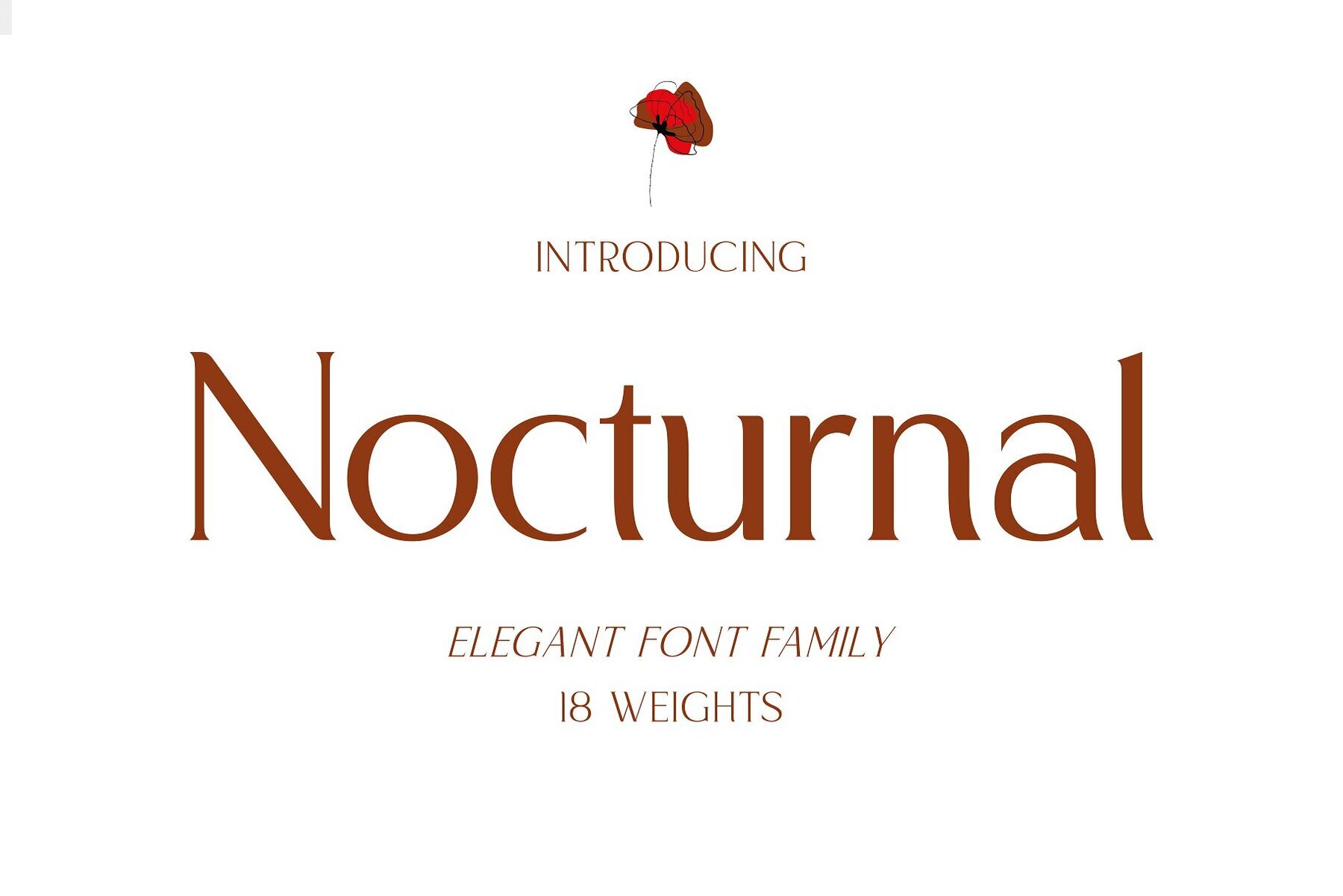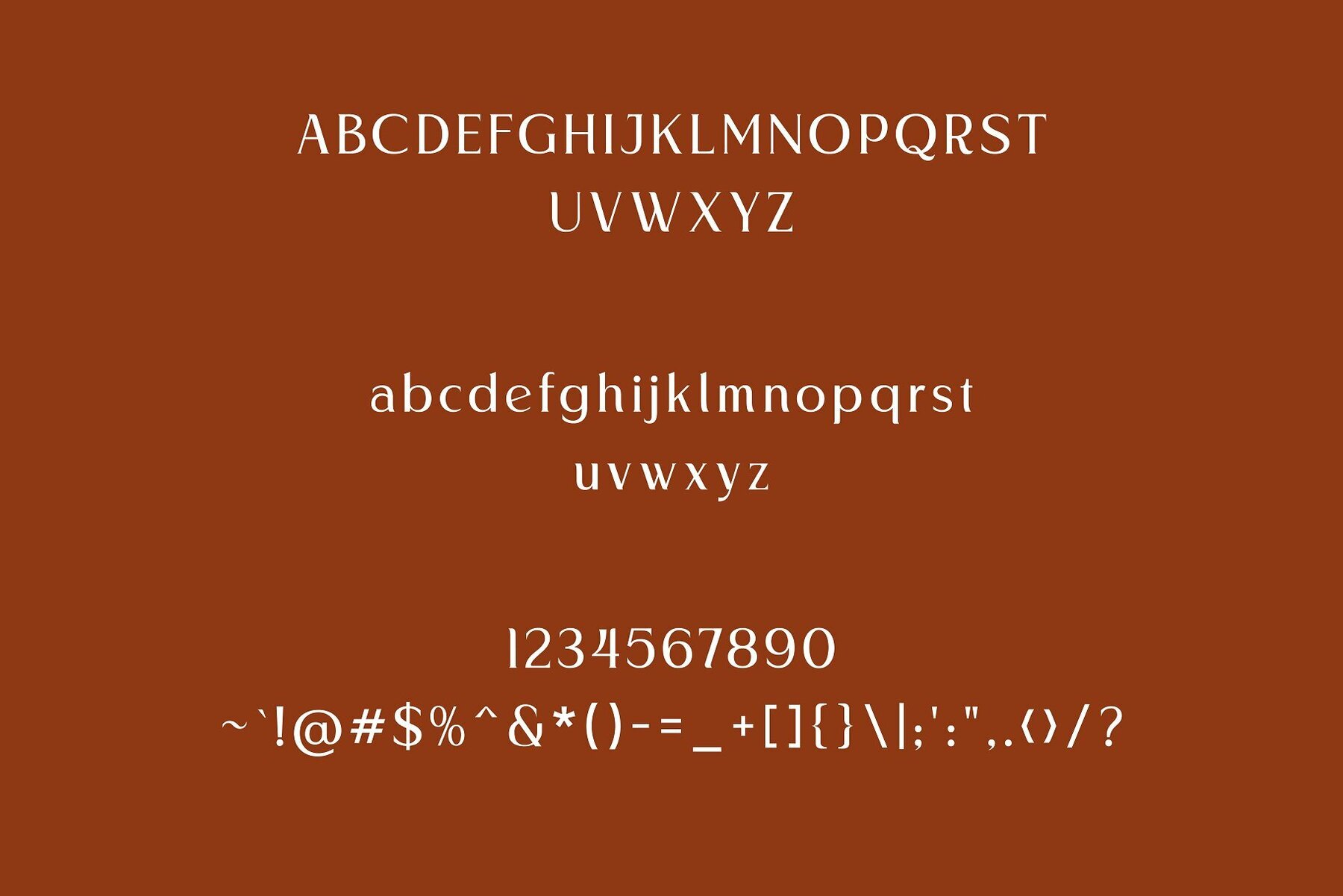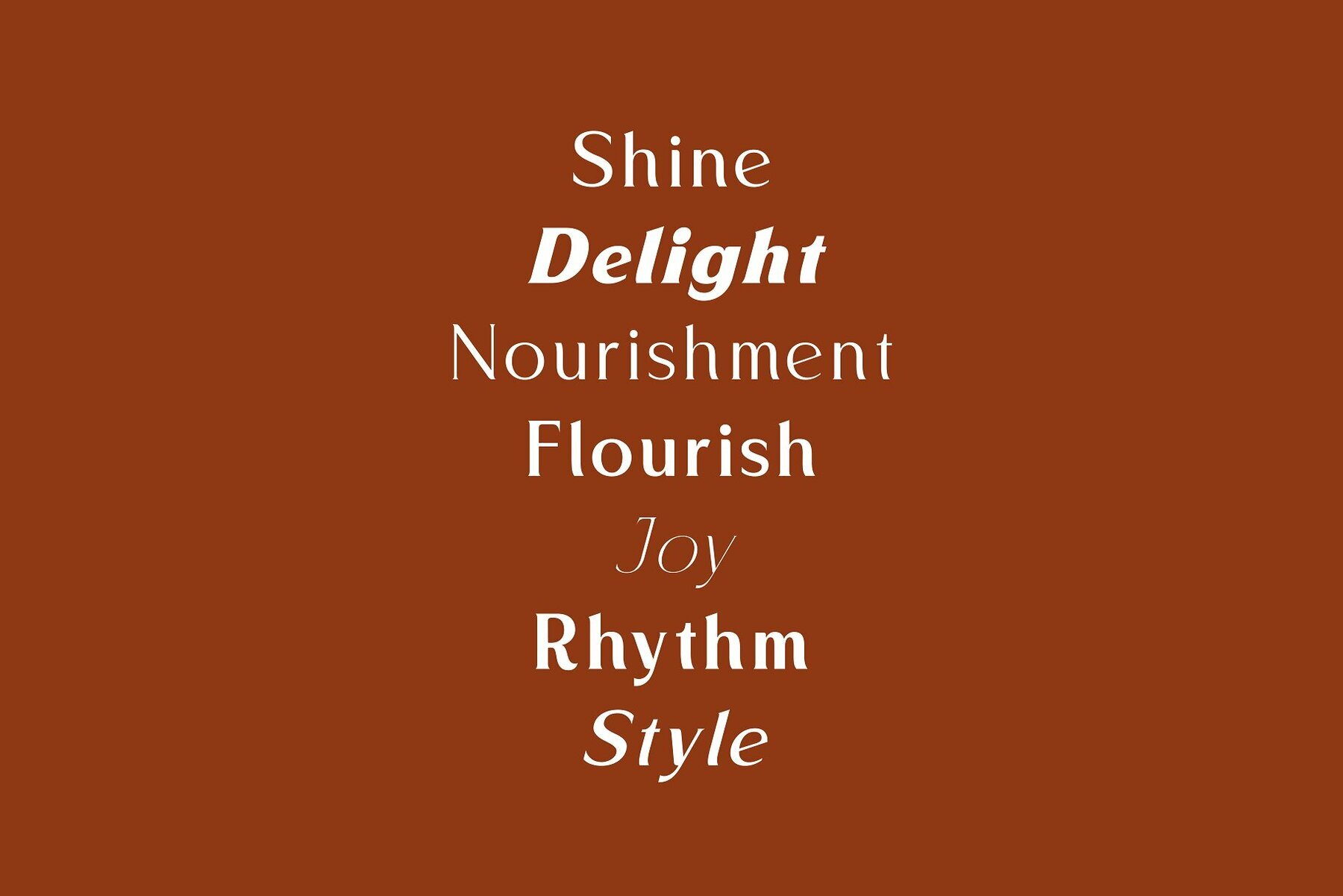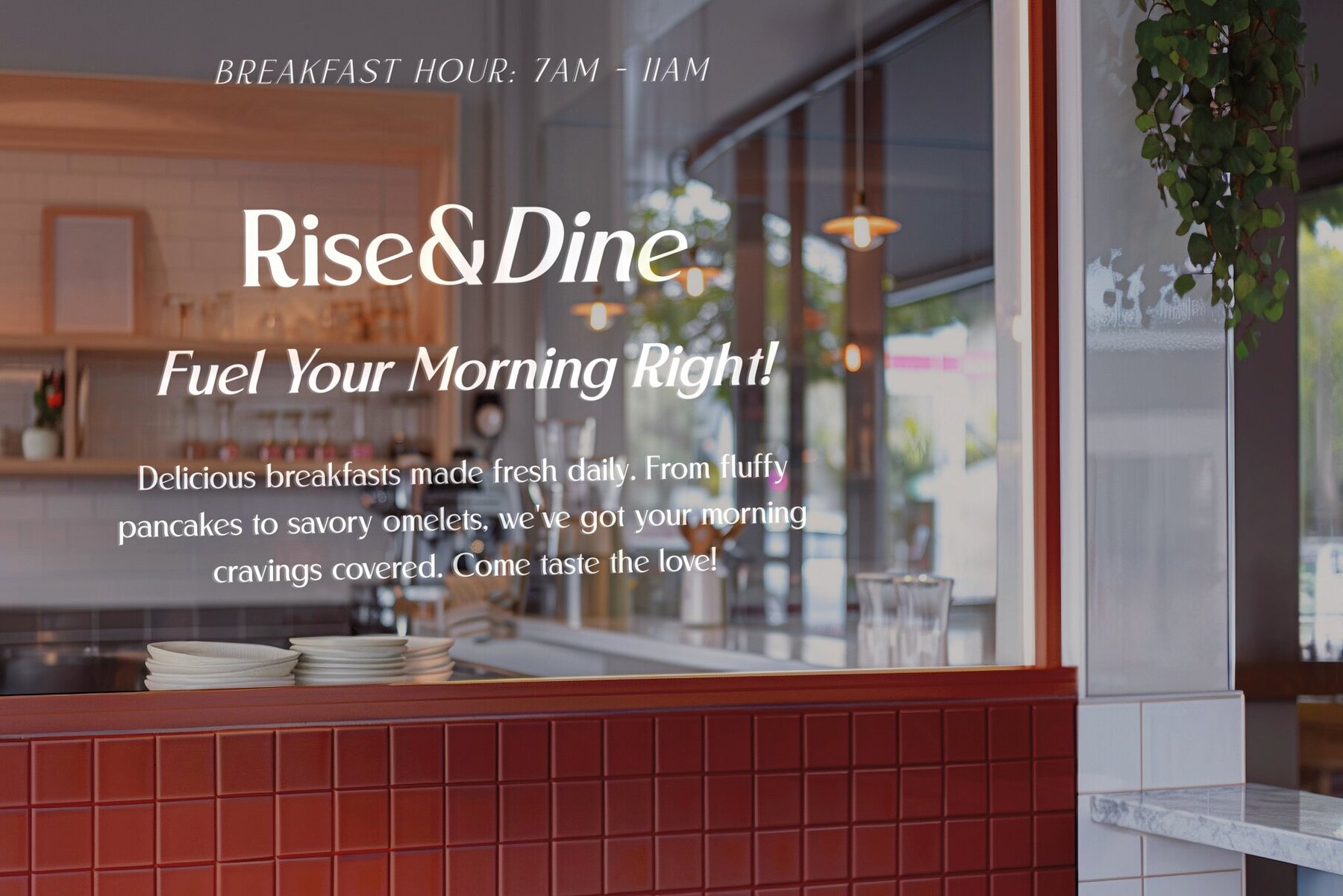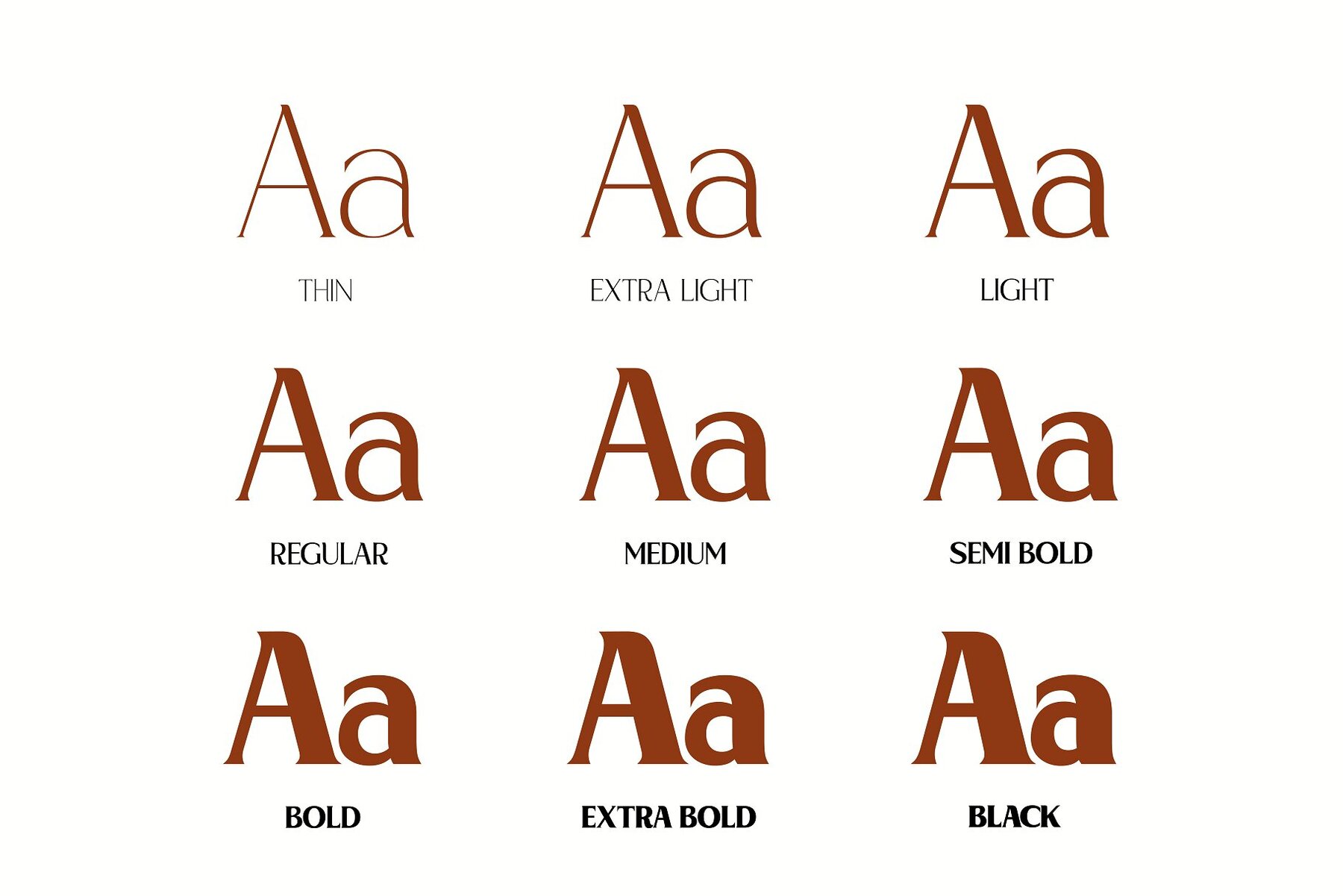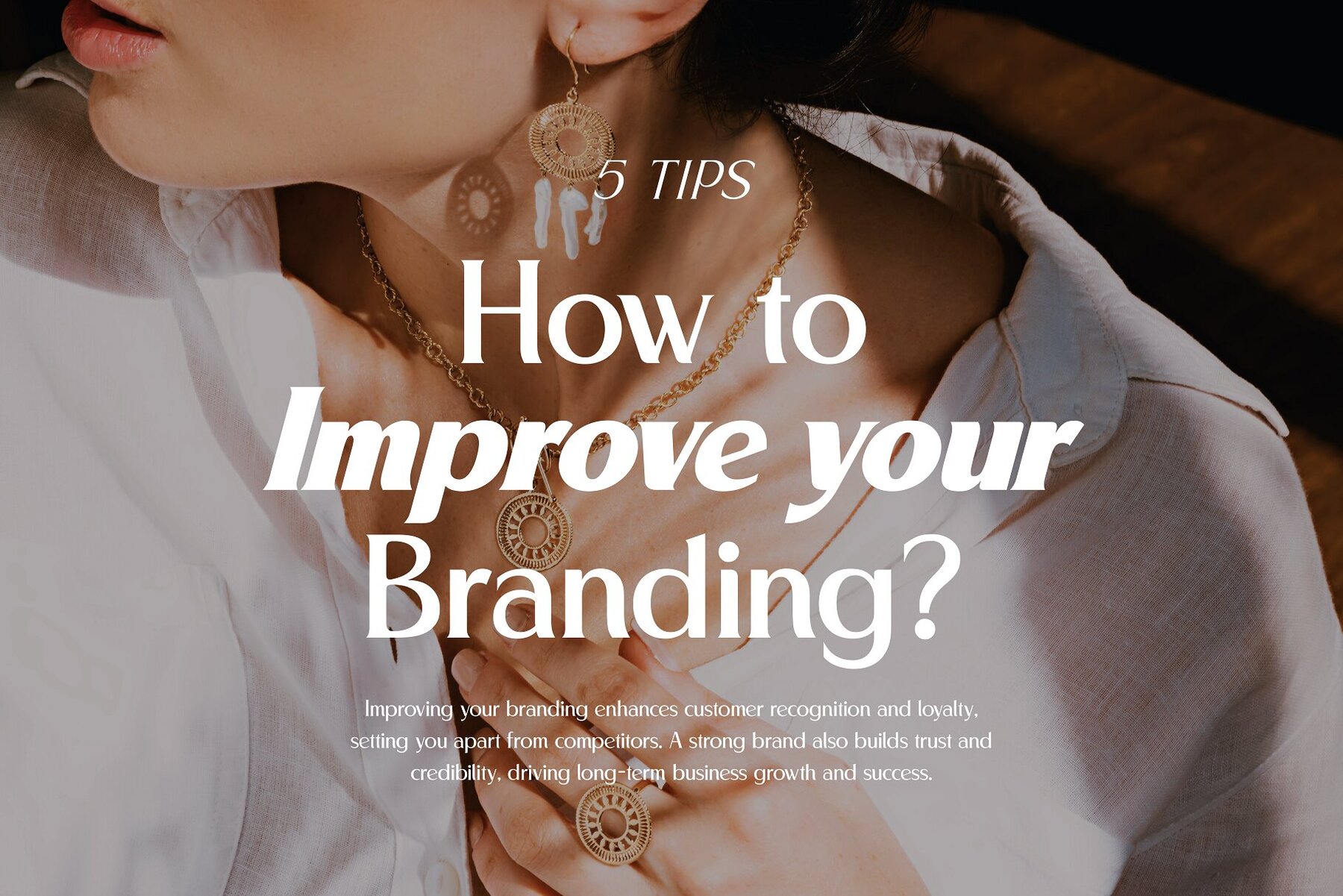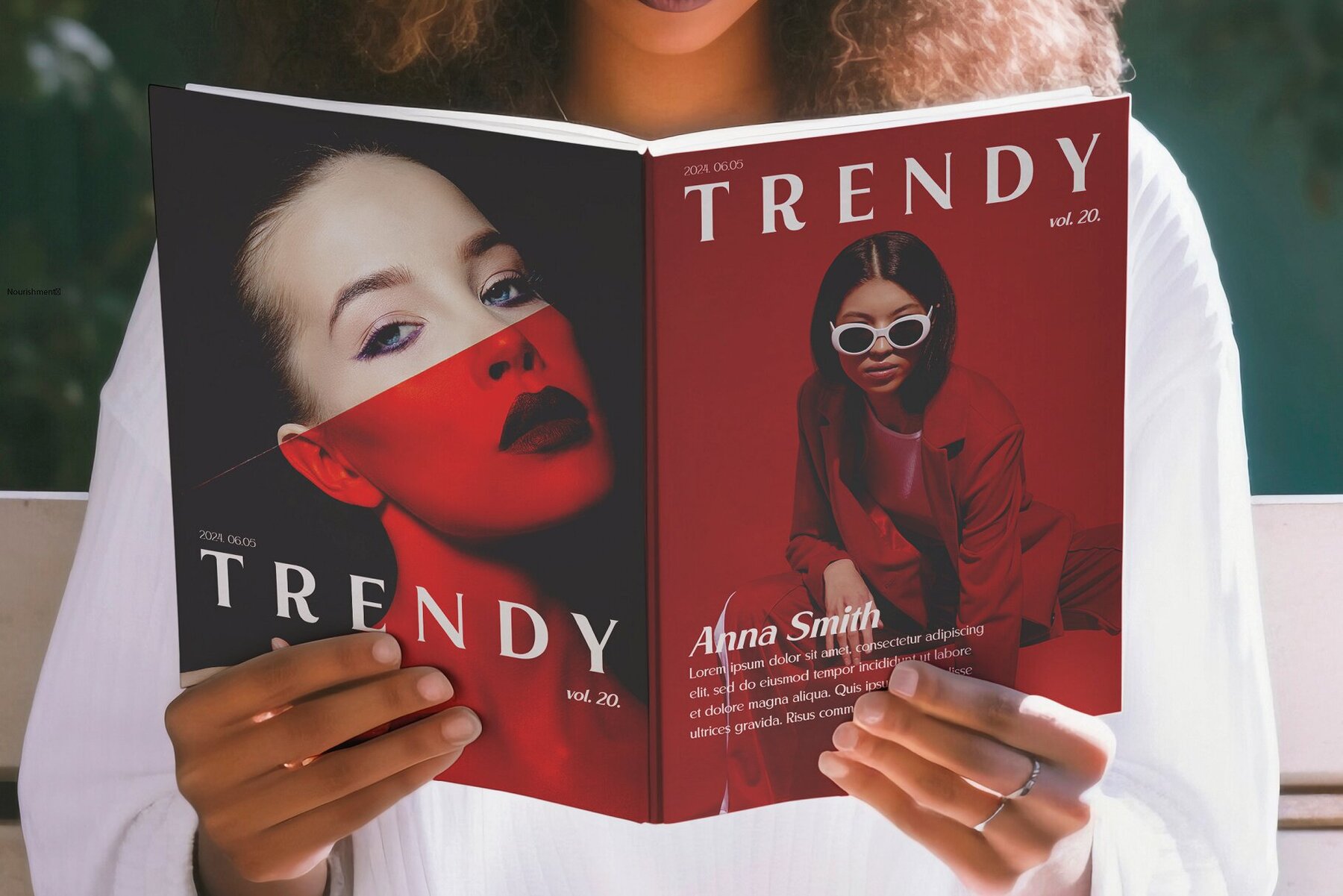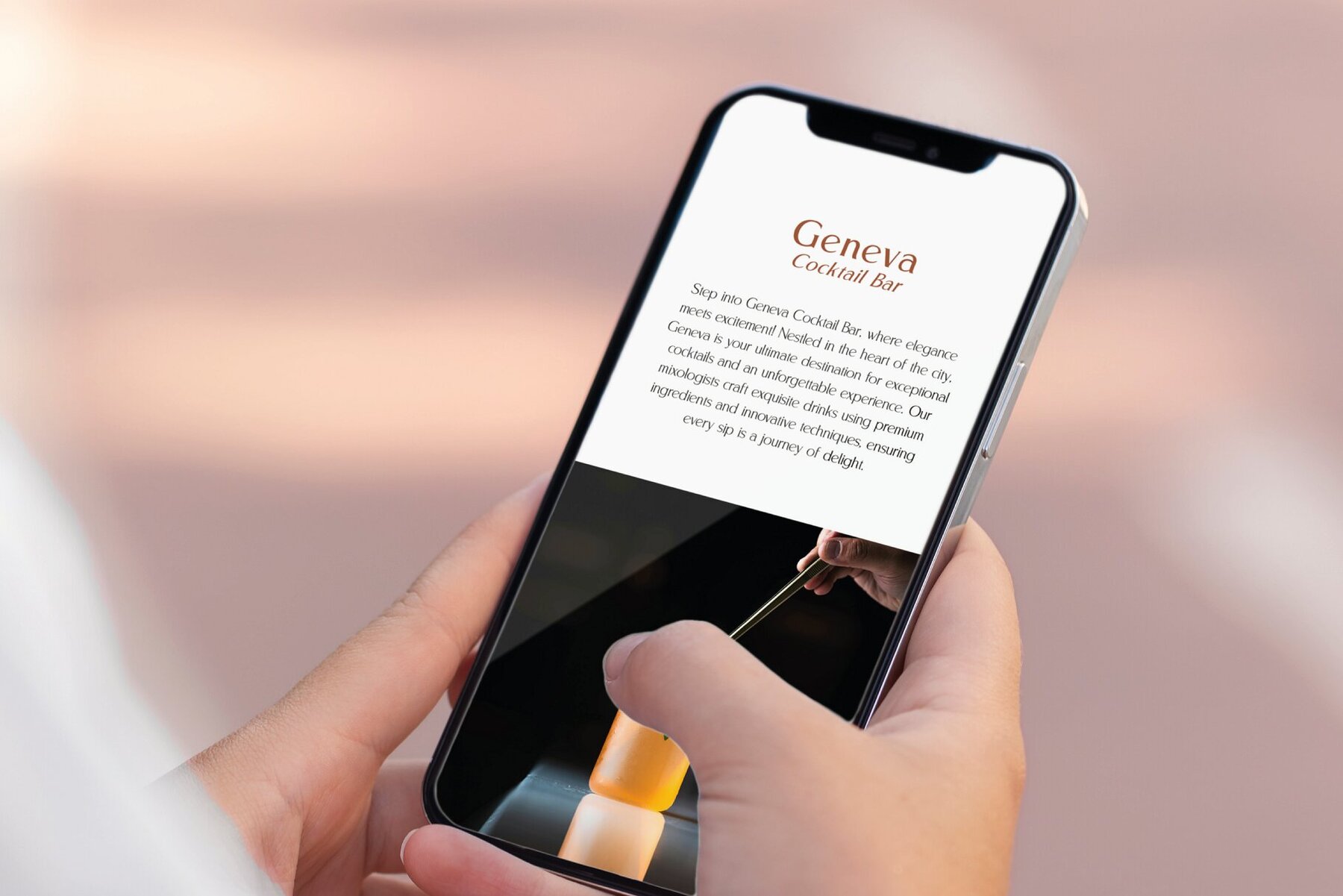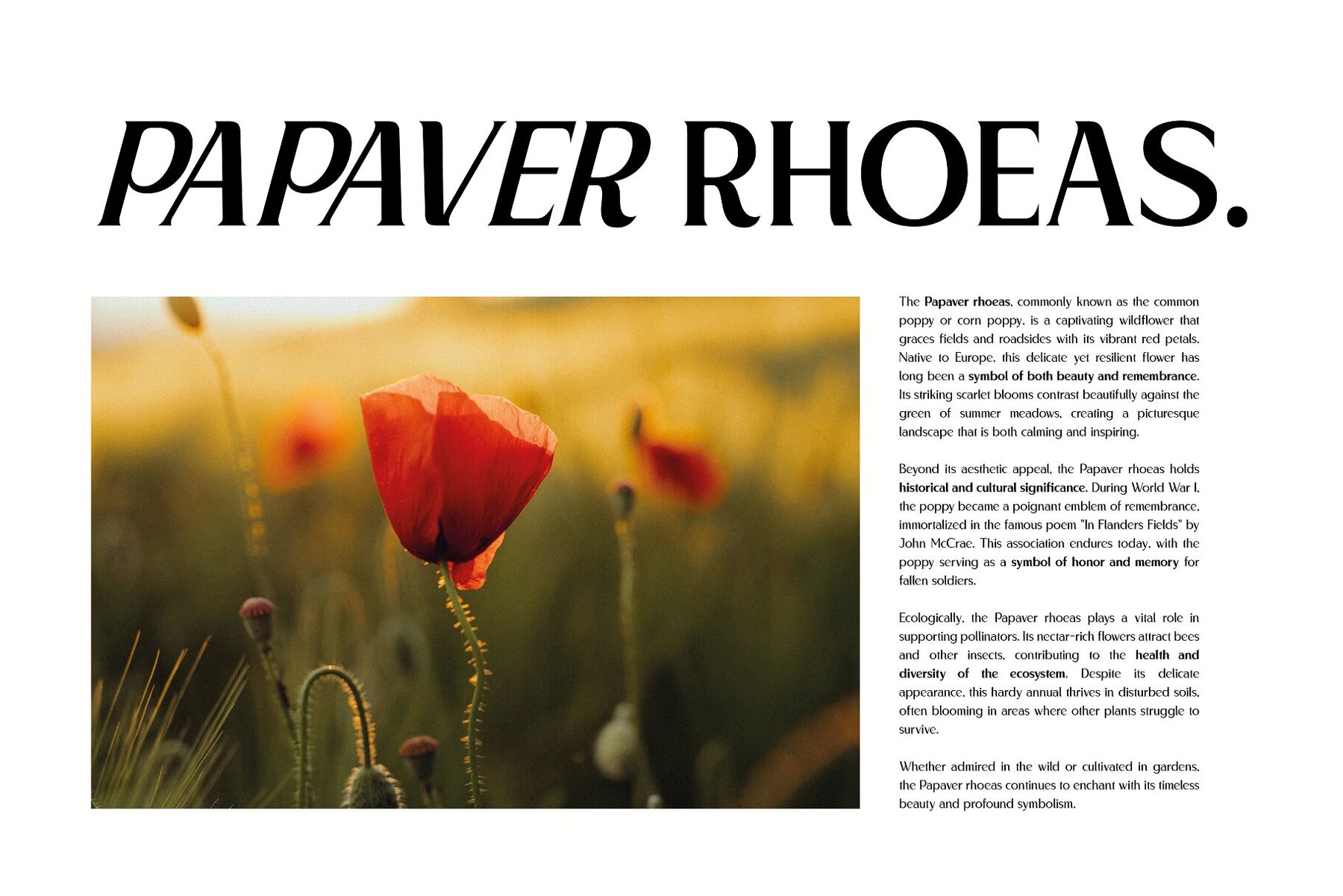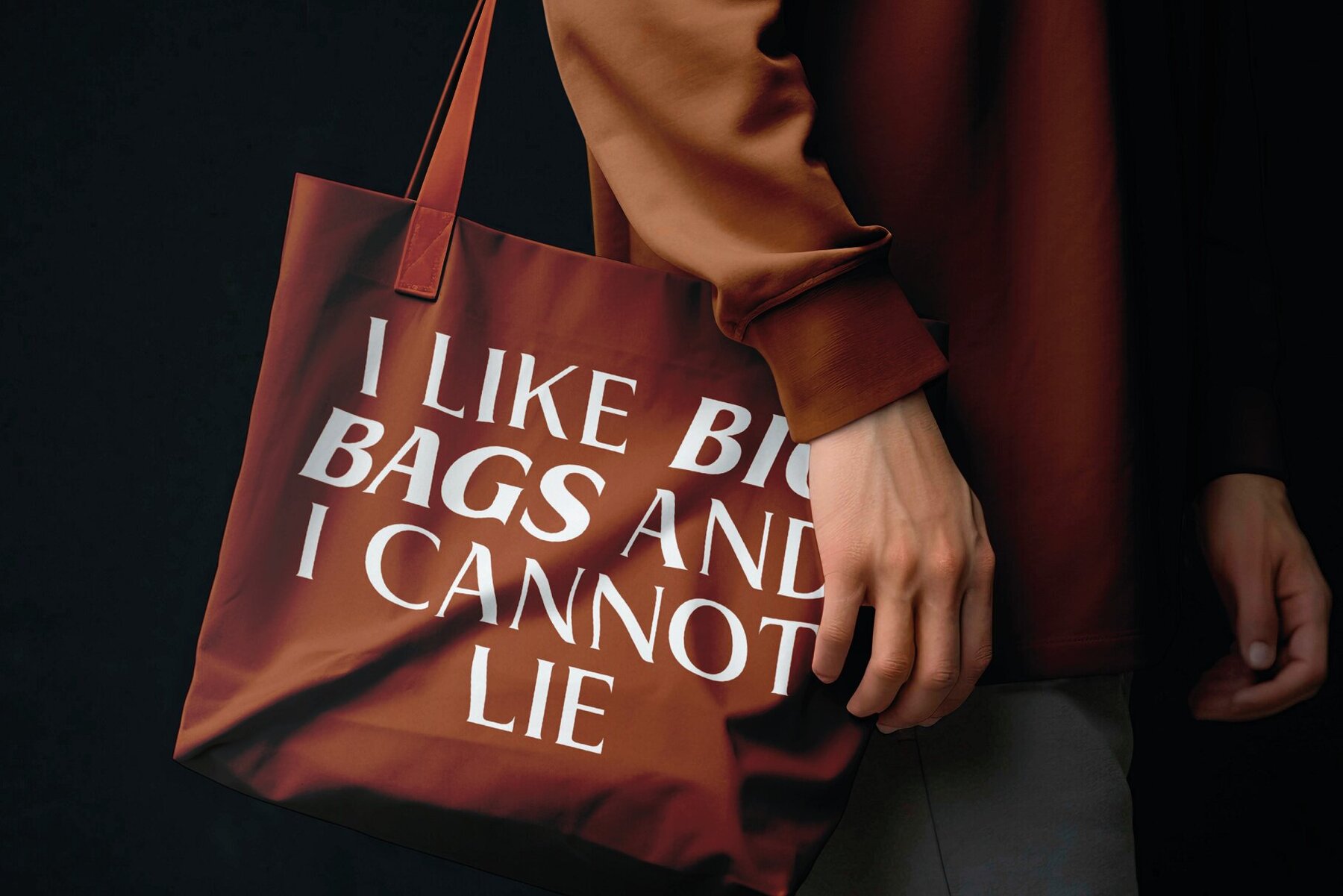
Nocturnal Font
Step into the enchanting world of Nocturnal, an exquisite sans-serif typeface that embodies the allure of the night. With its elegant design and versatile functionality, Nocturnal offers an experience of sophistication and style. Perfect for crafting brand identities, editorial content, and digital interfaces, Nocturnal ensures a balance of aesthetic charm and practical usability.
Nocturnal's blend of beauty and multilingual support makes it an invaluable tool for designers. Embrace the elegance and sophistication of this typeface and let your creativity flourish. Indulge in the enchanting beauty of Nocturnal, the sans-serif typeface that will become an essential part of your design toolkit. Feel the allure of the night and elevate your work with the timeless elegance of Nocturnal.